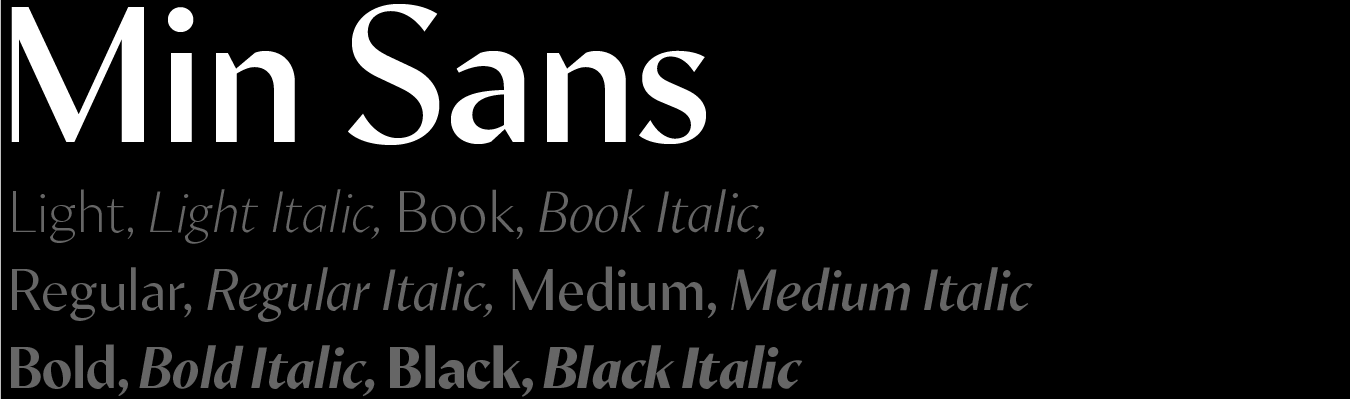
Min Sans is a modern, high-contrast sans serif typeface with sharp and clean cuts. The sharp notch and clean contour design exudes a strong personality and contemporary look. It is designed to be used for titles and headlines. Now available with 6 weights.
Eliptico is a contemporary, high-contrast serif typeface with diagonal stress and angled, oval-shaped counters.
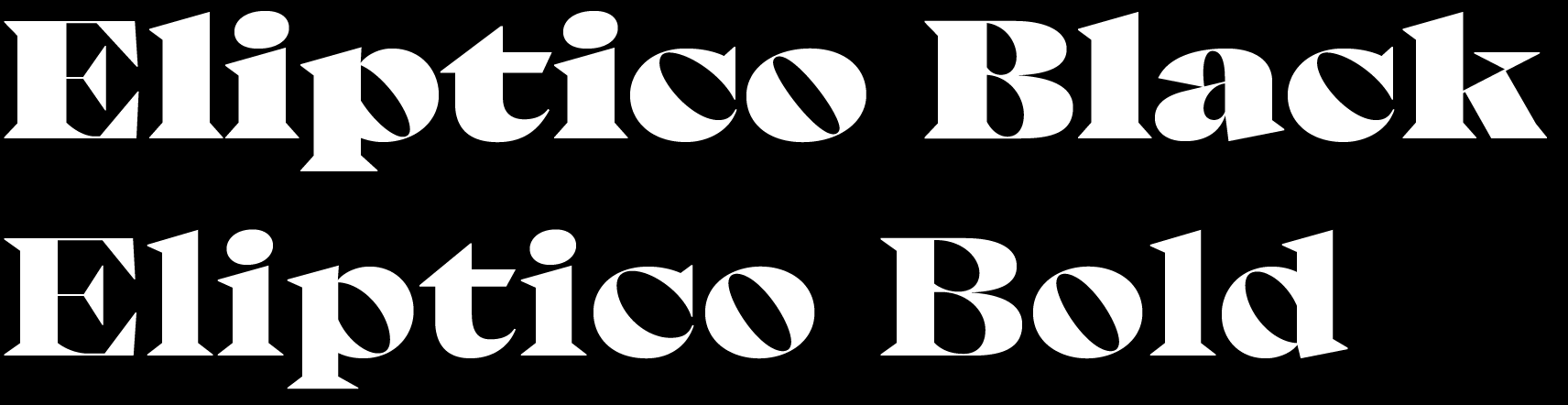
Stranger is ultra bold typeface with a quirky personality
Commissioned project: a custom font for The Home Edit based on the founder's handwriting
Min Sans is a modern, high-contrast sans serif typeface with sharp and clean cuts. The sharp notch and clean contour design exudes a strong personality and contemporary look. It is designed to be used for titles and headlines. Now available with 6 weights.
Eliptico is a contemporary, high-contrast serif typeface with diagonal stress and angled, oval-shaped counters. Available on FutureFonts︎︎︎
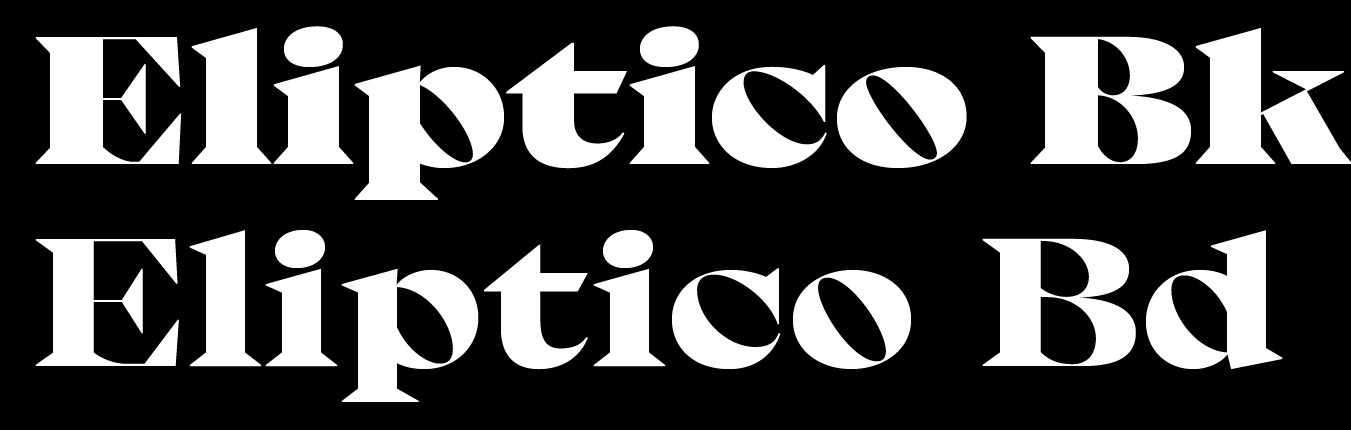
Stranger is ultra bold typeface with a quirky personality.
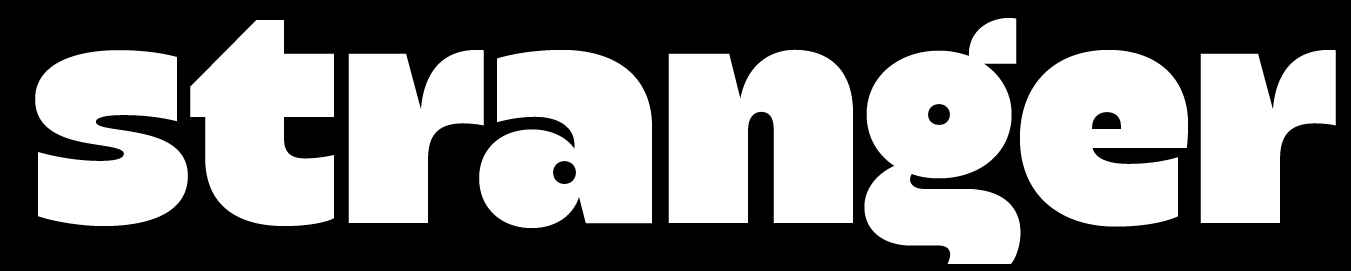
Commissioned Project: custom font for The Home Edit based on the founder's handwriting